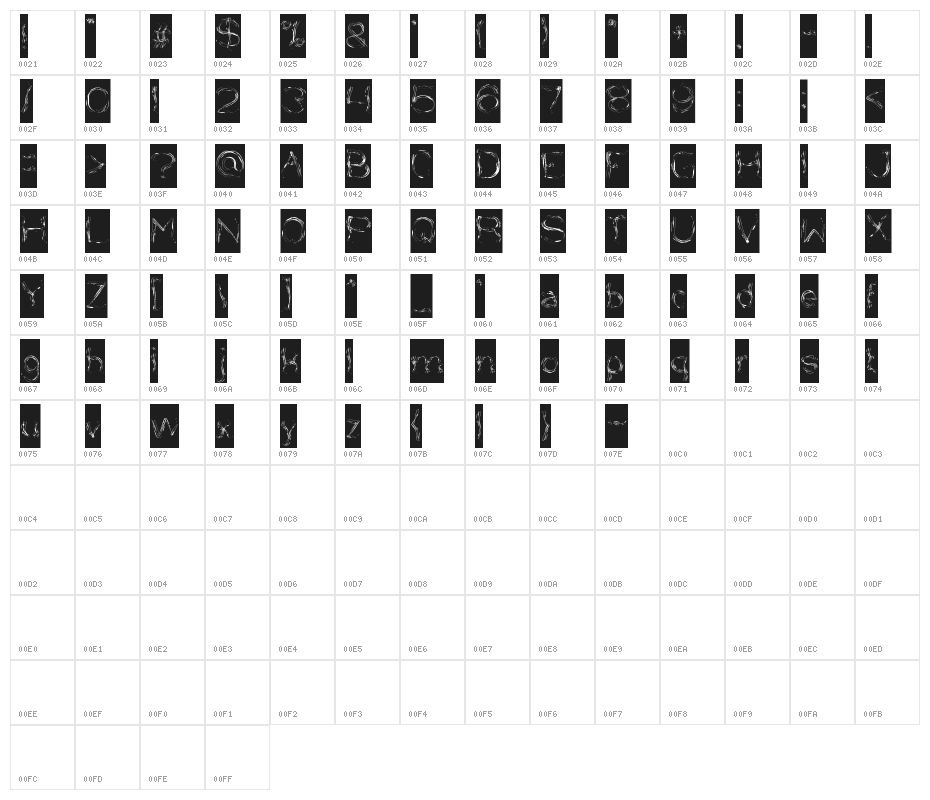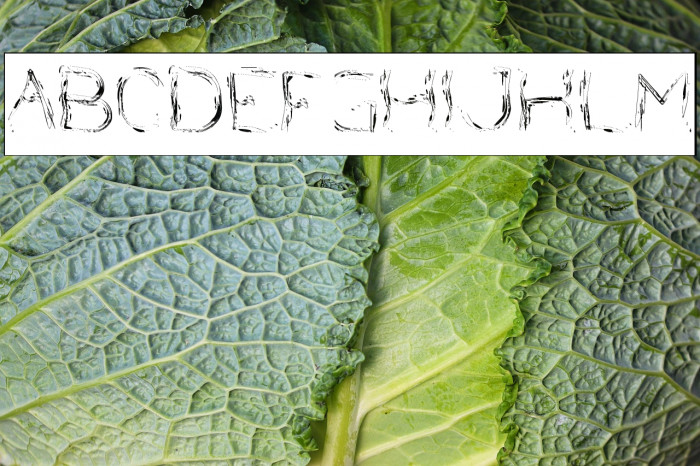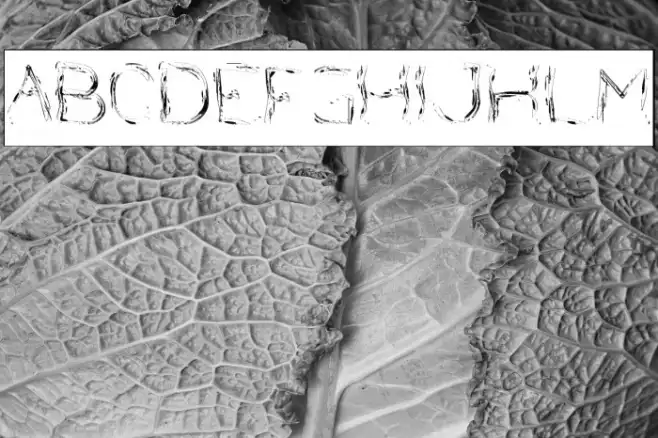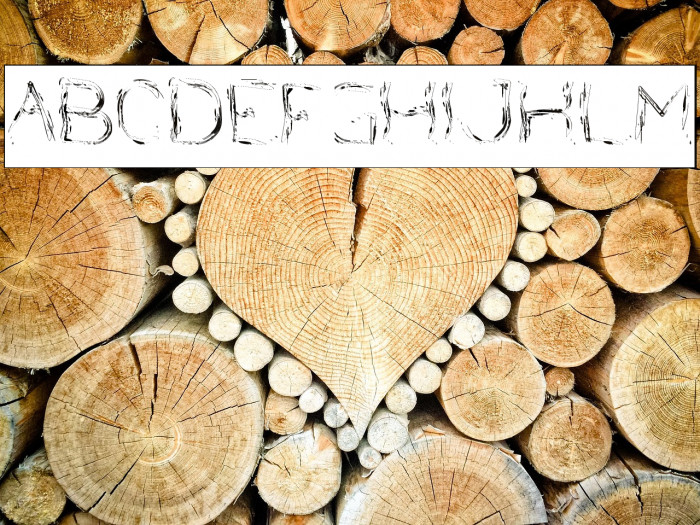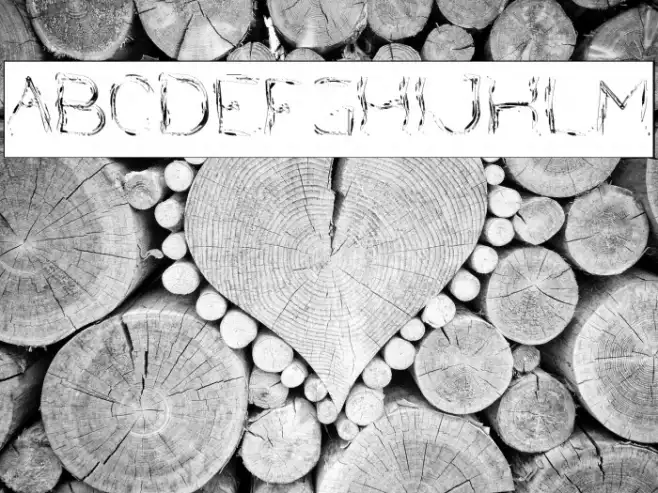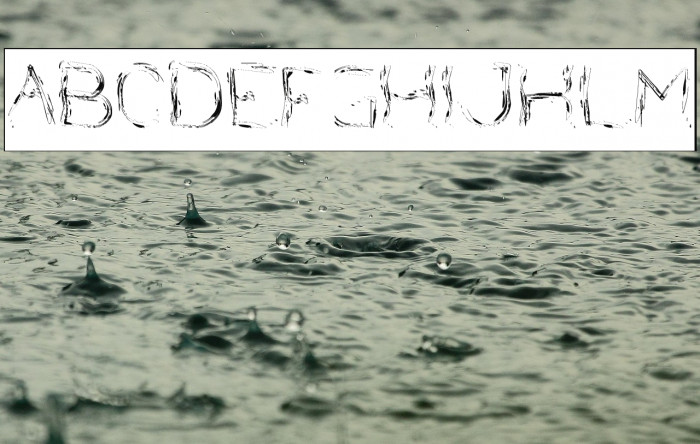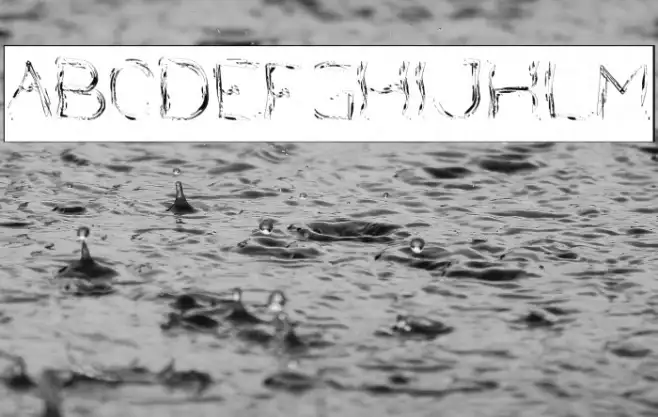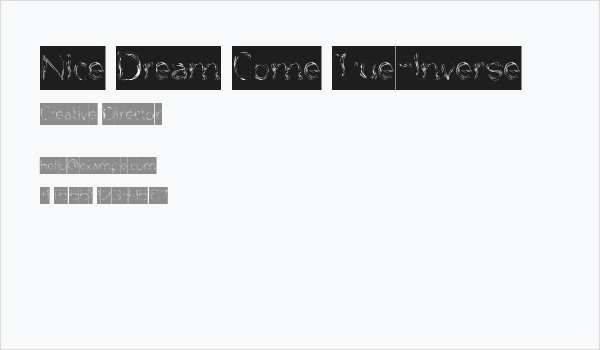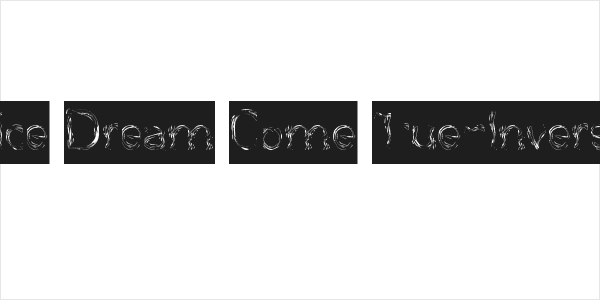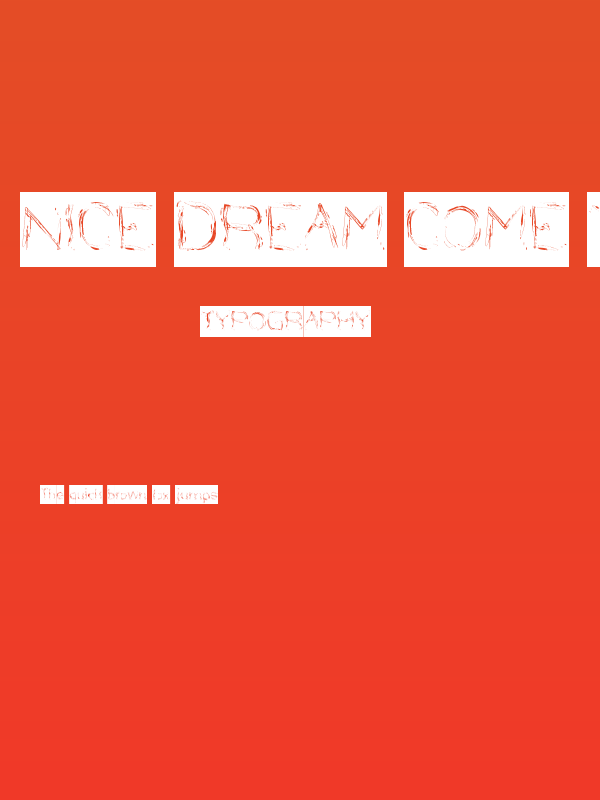
Nice Dream Come True-Inverse Font
Nice Dream Come True-Inverse Description
This font features a highly decorative and artistic style, characterized by its swirling, intricate lines that create a sense of movement and fluidity. Each character is uniquely crafted, with strokes that appear almost hand-drawn, giving it a whimsical and dreamlike quality. The uppercase and lowercase letters maintain a consistent style, with the same swirling patterns extending to the numerals and special characters. This font's design is both captivating and complex, making it stand out in any application. Its unique aesthetic is reminiscent of abstract art, where each letter seems to tell its own story through its elaborate design.
| Use Case | Logos, Posters, Artistic Projects |
| Proposed Projects | Ideal for artistic projects, album covers, posters, and creative branding that seeks a unique and eye-catching aesthetic. |